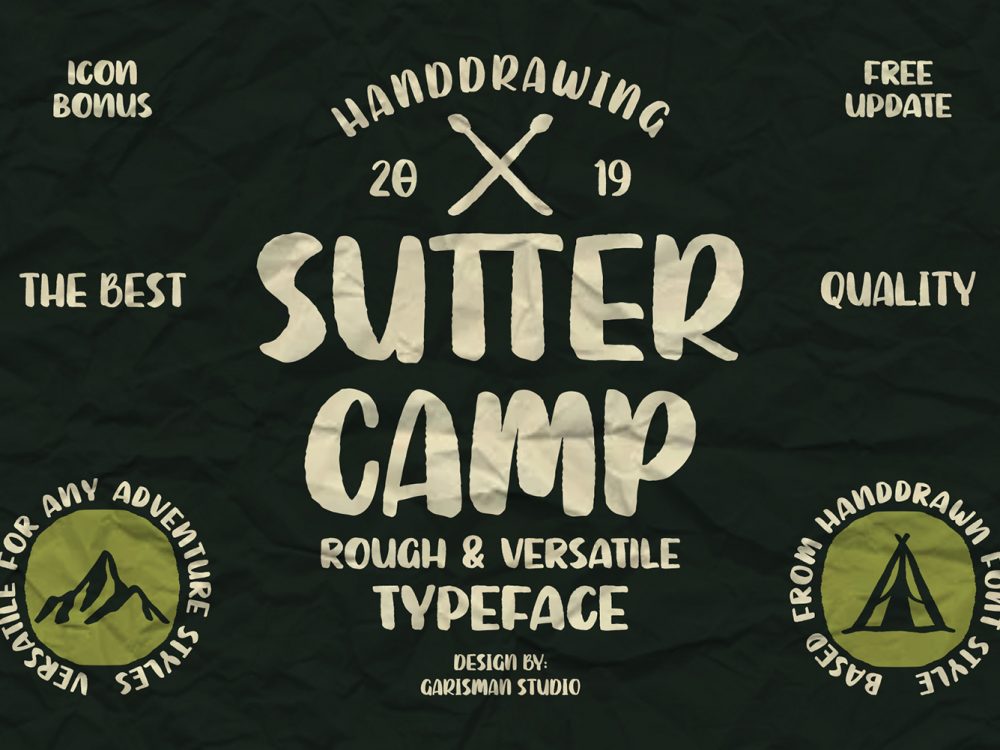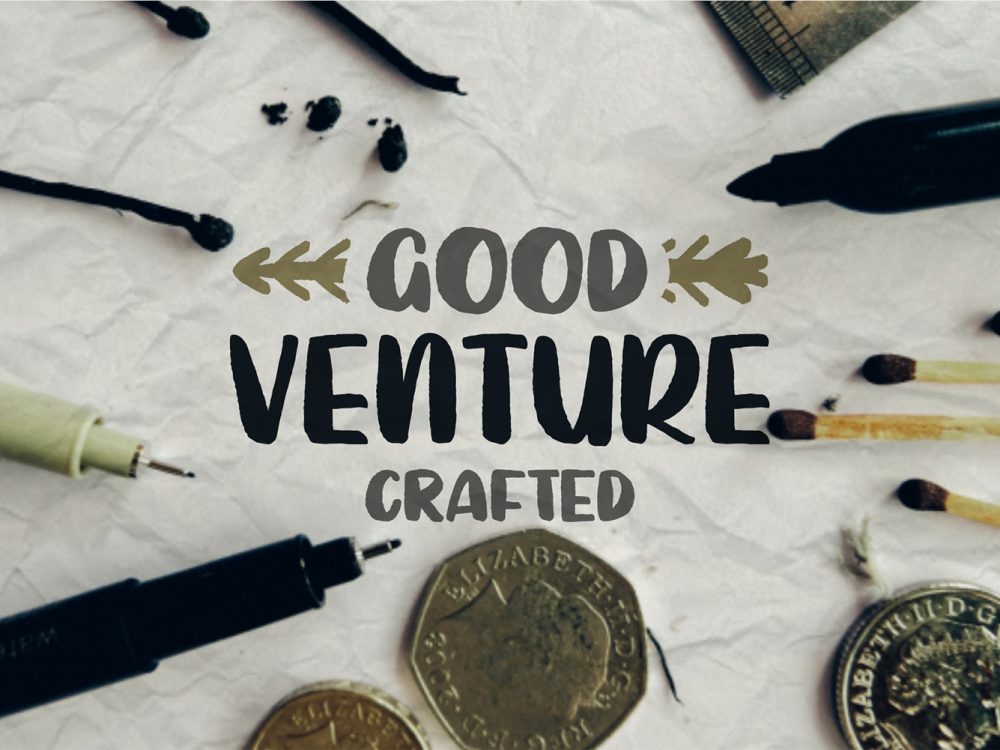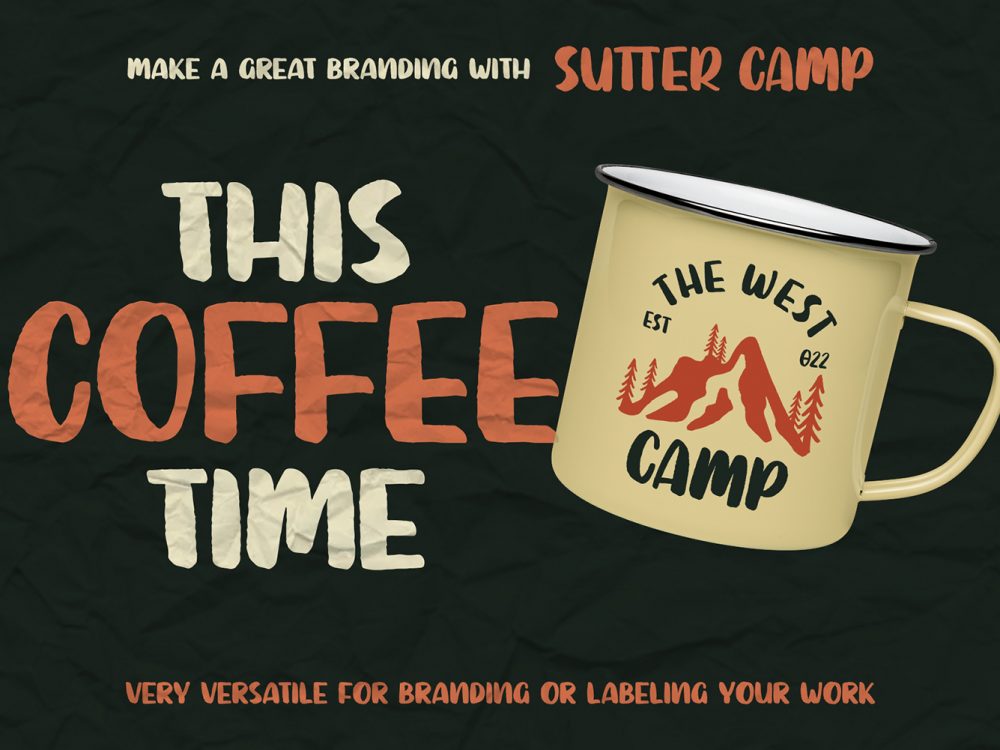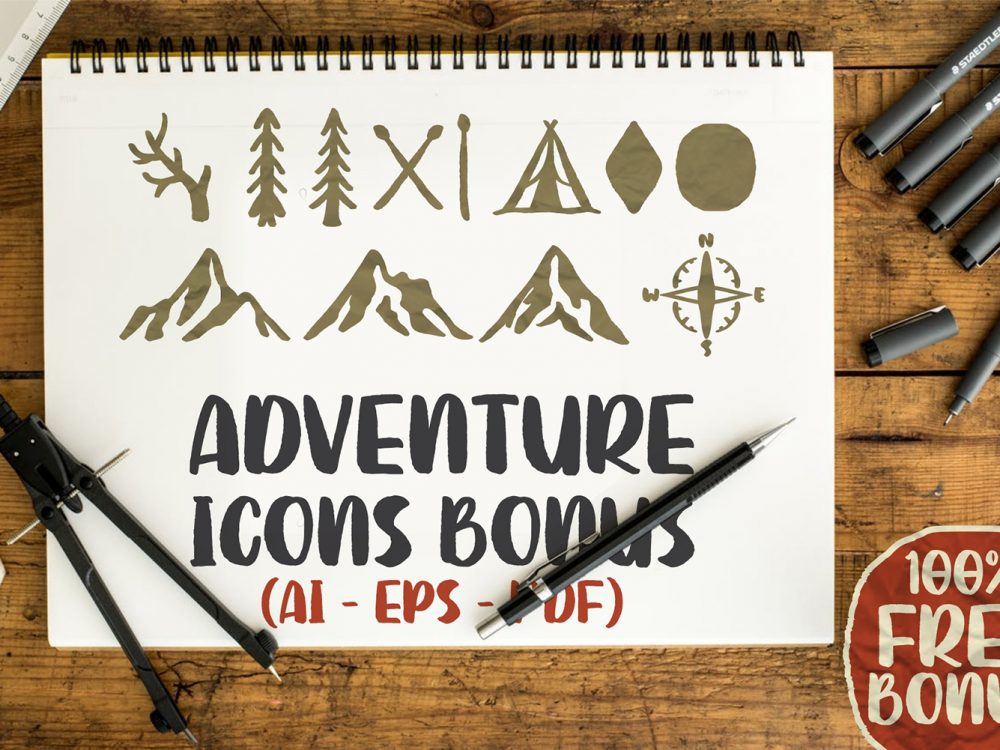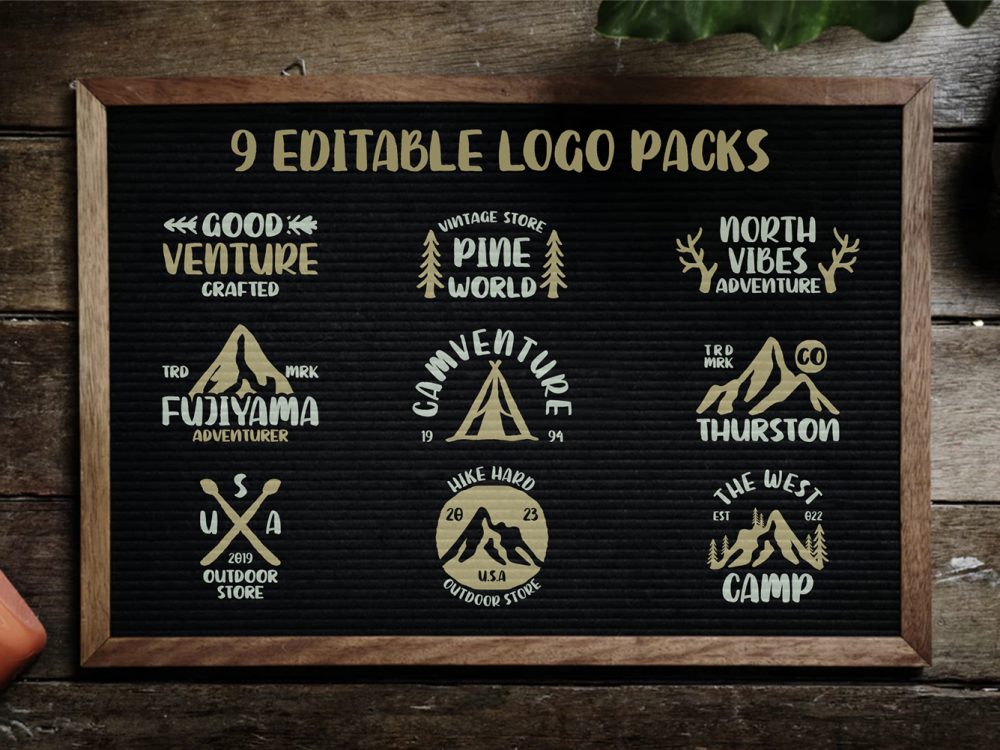
Sutter Camp Free Font
Sutter Camp Free Font is an interesting stylish font that will help you create unique design projects in a vintage style. You can use this font to create memorable retro posters, memorable wedding invitations, cards, branding, flyers, and more. If you like it don’t forget to check out the full version.